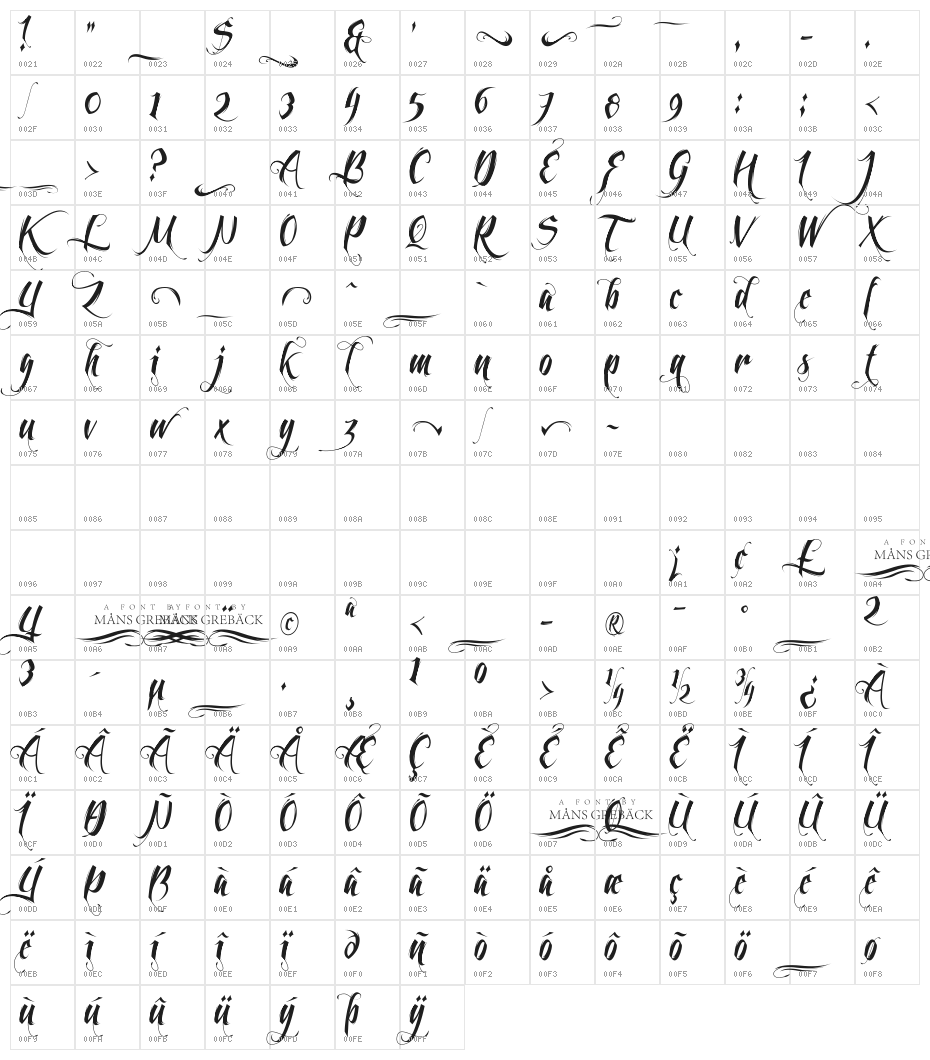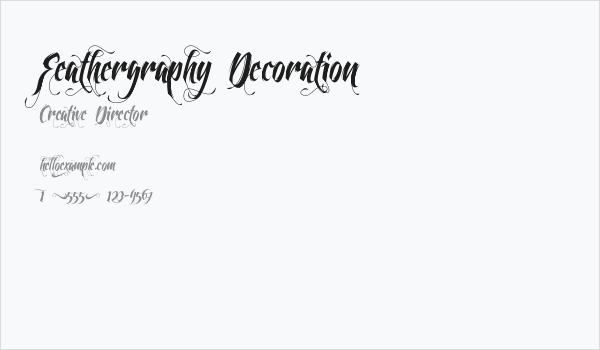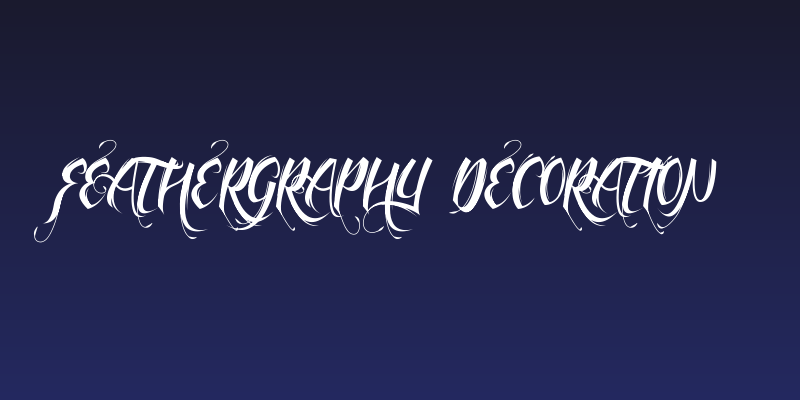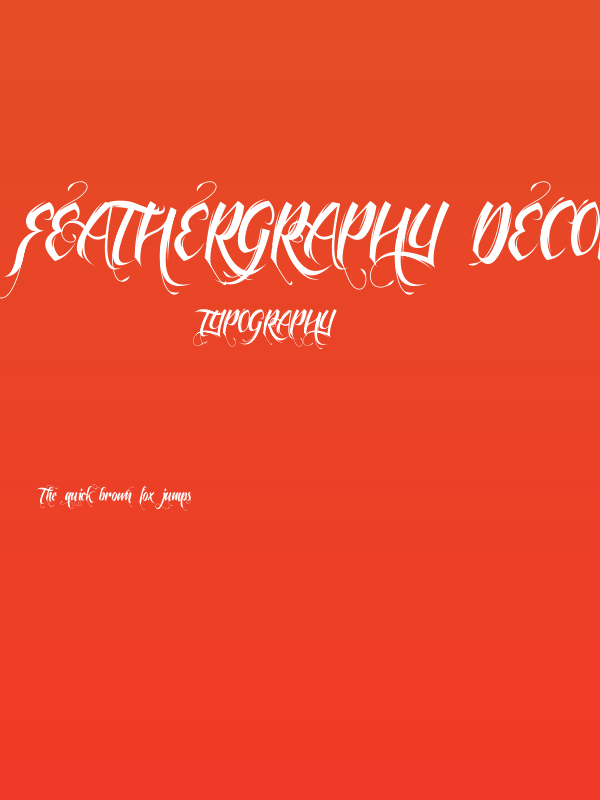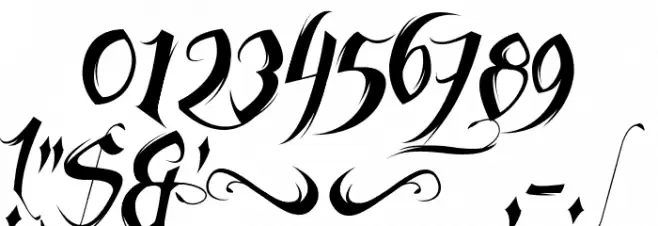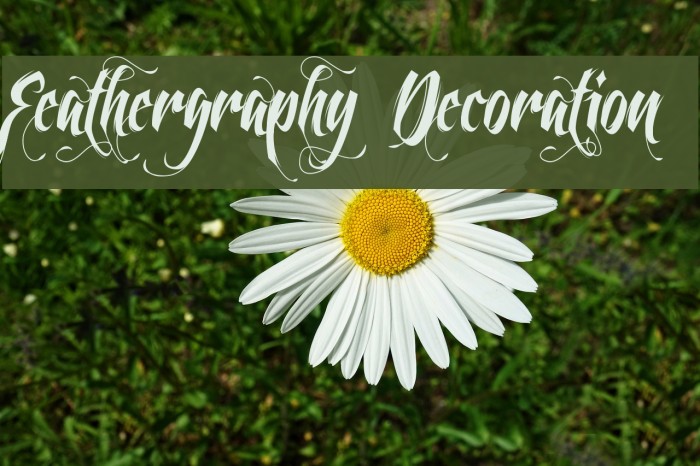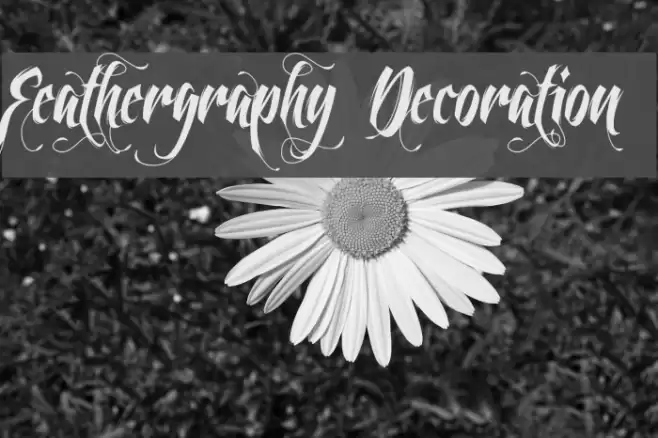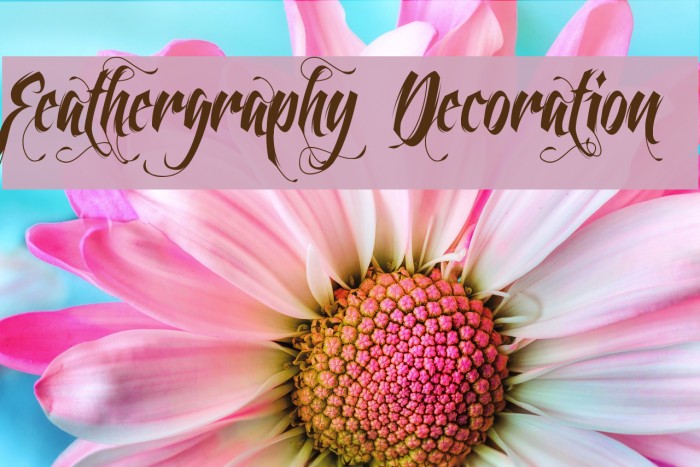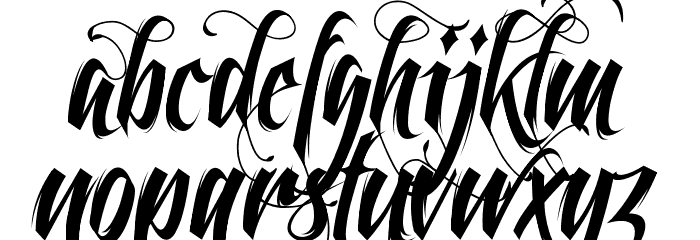
Feathergraphy Decoration Font
Feathergraphy Decoration Description
This font exudes elegance and sophistication with its intricate, flowing script style. The characters are adorned with elaborate swashes and flourishes, giving it a highly decorative appearance. The uppercase letters are bold and commanding, while the lowercase letters maintain a graceful fluidity. The numerals and special characters are equally ornate, maintaining the overall aesthetic. This font is perfect for creating a sense of luxury and refinement, making it ideal for formal invitations, branding, and artistic projects. Its high contrast and dramatic strokes make it stand out, ensuring that any text set in this font will capture attention.
| Use Case | Logos, Headlines, Artistic projects |
| Proposed Projects | Ideal for wedding invitations, luxury branding, artistic posters, and decorative signage. |